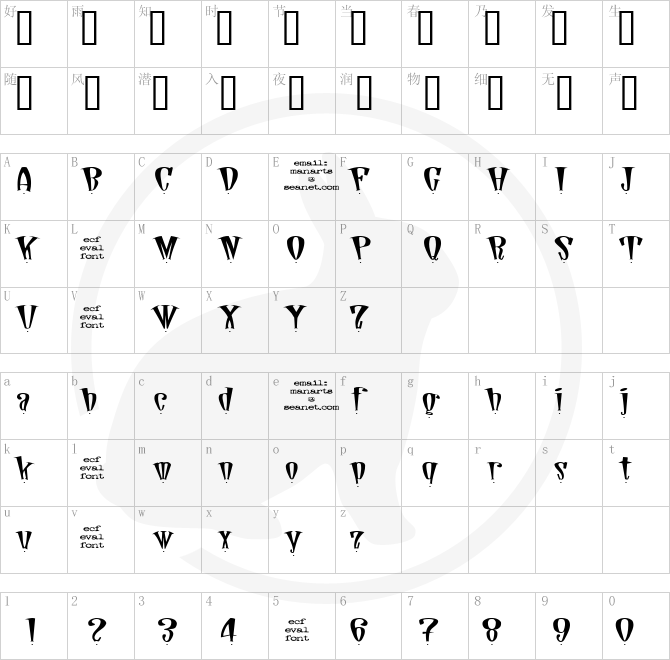
- Font Name:daddio dot (eval)
daddio-dot-eval-.ttf is a very beautiful artistic font, daddio-dot-eval-.ttf is widely used in the design and printing of various books and pictures,daddio-dot-eval-.ttf has a strong visual impact,daddio-dot-eval-.ttf is a commonly used font in newspapers, magazines and books, and is used in posters, e-commerce Poster design, store design, logo design, font design and other fields.daddio-dot-eval-.